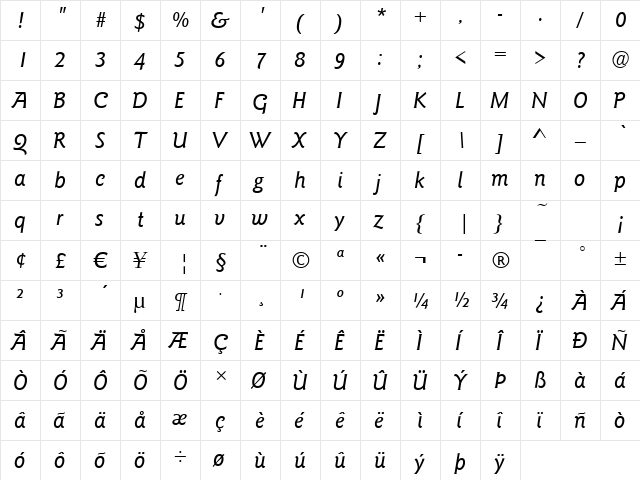
Goudy-Elegant-Medium Italic Font Preview
Goudy-Elegant-Medium Italic
Goudy-Elegant-Medium Italic Font Details
Design Context for Goudy-Elegant-Medium Typeface
Goudy-Elegant-Medium takes a measured approach to typography — its balanced proportions and neutral character make it a reliable workhorse for both digital and print work. The dynamic lean of this cut emphasises speed and emphasis in any layout.
Pro Tip: Try Goudy-Elegant-Medium for annotation and caption copy alongside an upright companion — the contrast in angle creates a dynamic but ordered typographic system.